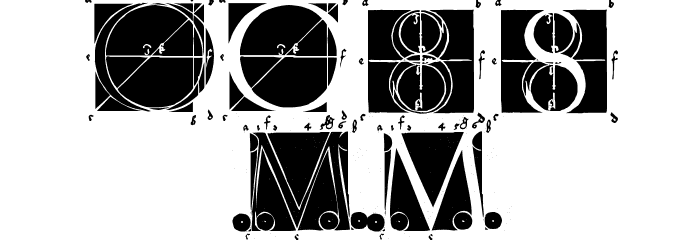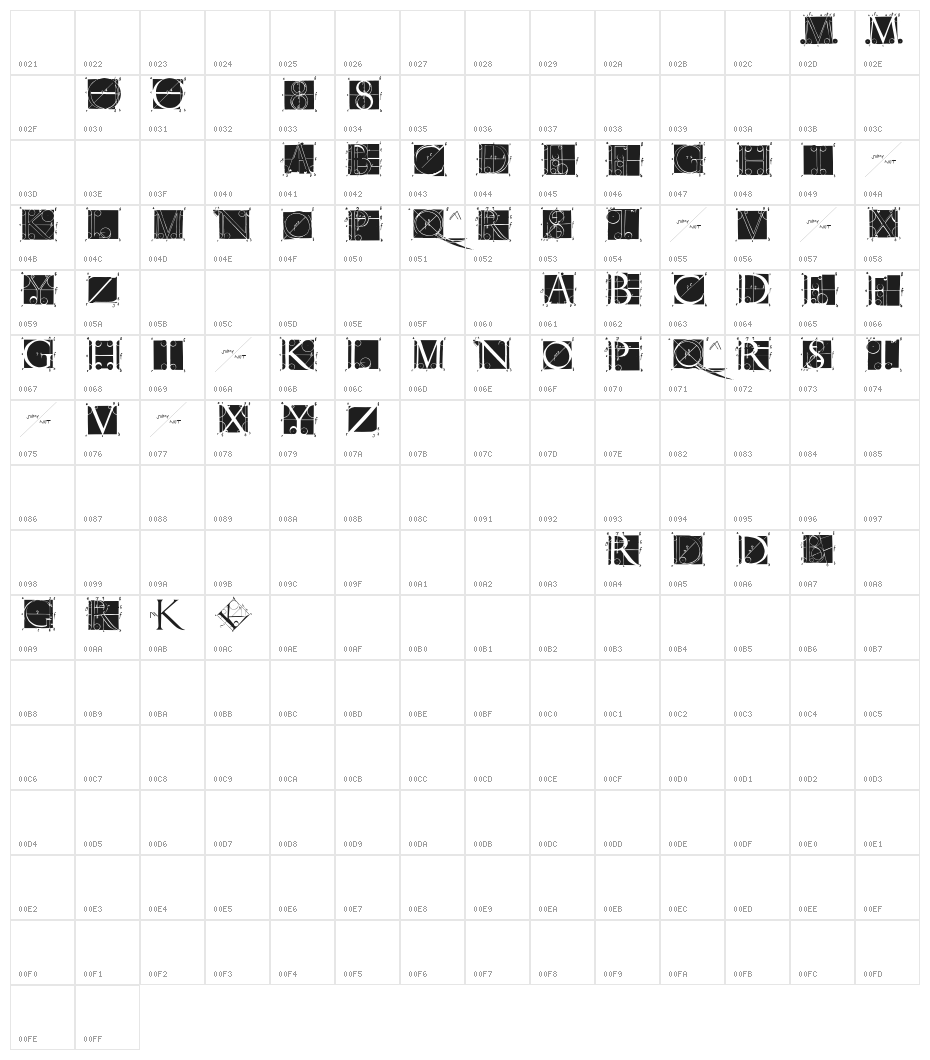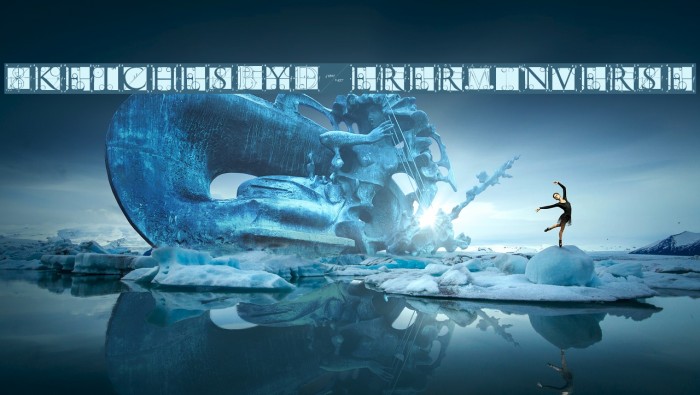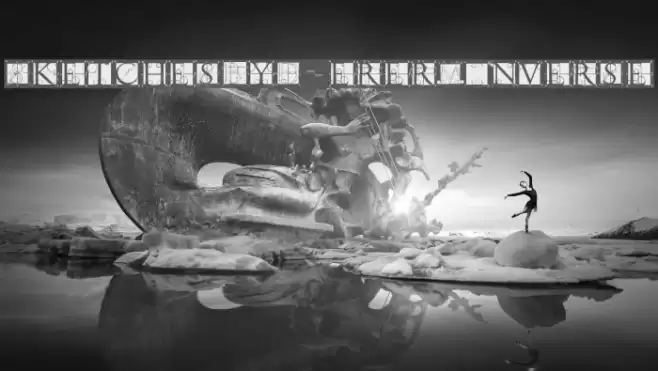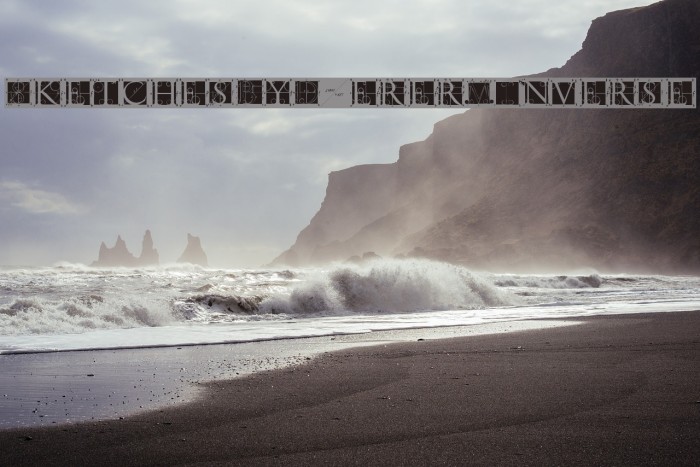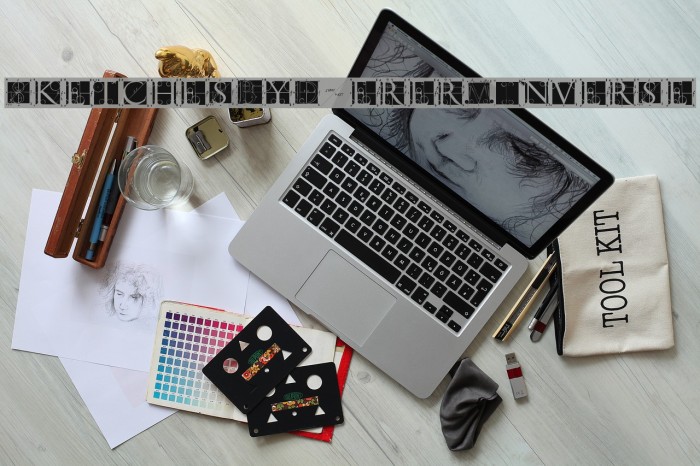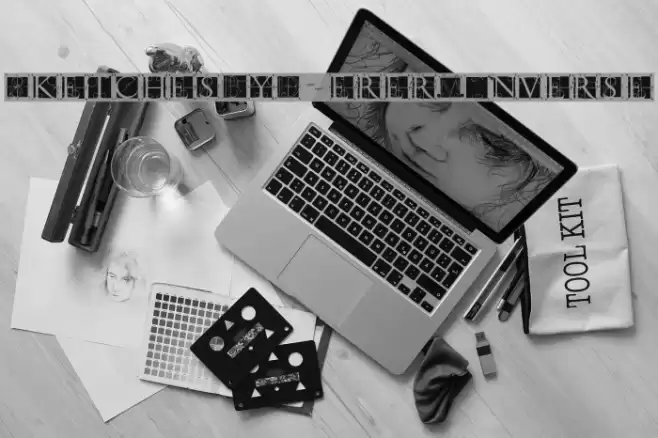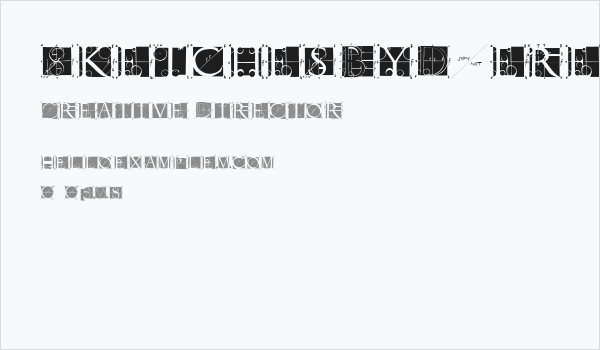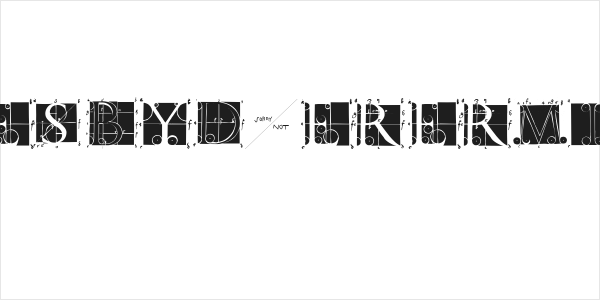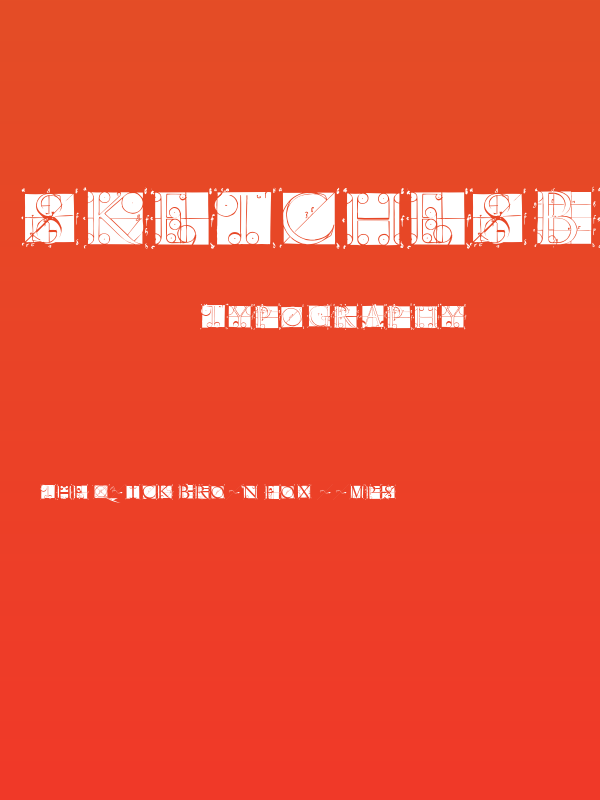
SketchesByDuerer-Inverse Font
SketchesByDuerer-Inverse Description
This font features a highly decorative and intricate design, reminiscent of historical and artistic influences. Each character is enclosed within a square, with geometric patterns and lines intersecting to form the letters. The use of circles and straight lines gives it a structured yet artistic appearance. The uppercase and lowercase letters are consistent in style, maintaining the same geometric theme. The numbers and special characters follow the same design principles, ensuring uniformity across the font. This font's unique style makes it stand out, with a strong emphasis on artistic expression and historical aesthetics.
| Use Case | Logos, Posters, Decorative Text |
| Proposed Projects | Ideal for artistic projects, historical themed designs, posters, and decorative invitations. |